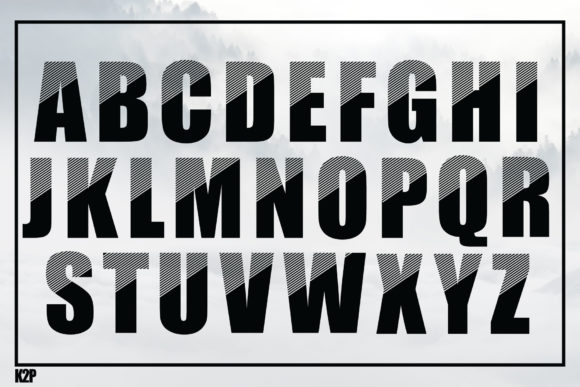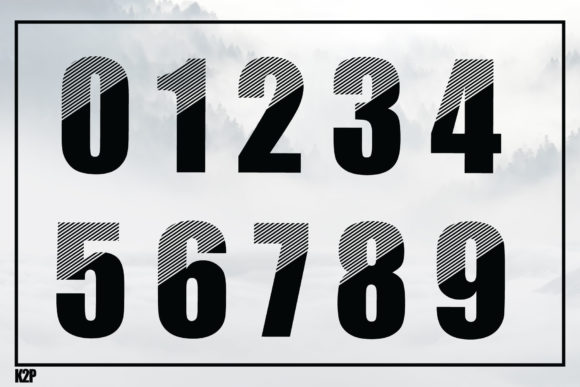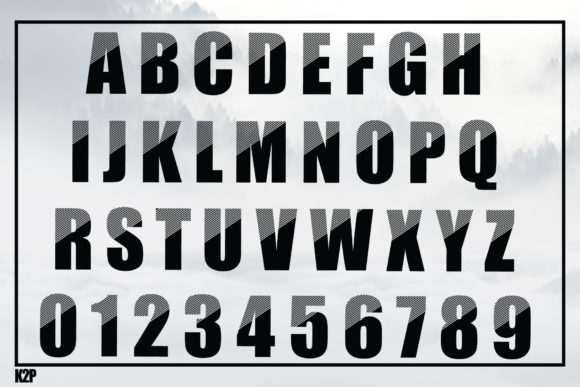
Introduction to Basic 101 Font
As you sit down at your desk, surrounded by scattered sheets of paper, markers, and glue, the spark of creativity ignites within you. The blank canvas stares back, waiting for your touch. This is the moment when imagination knows no bounds, and the possibilities are endless. For designers, this is the thrill of the chase, the pursuit of bringing a vision to life. And when it comes to adding that perfect finishing touch, a high-quality font can make all the difference.
Enter the Basic 101 Font, a free download that’s about to become your new best friend. This uniquely designed display font is perfect for any project or crafty idea, and its thick-lettered goodness is sure to add an extra layer of depth to your creations. With its transparent background and versatility, the Basic 101 Font is an invaluable design resource that’s sure to elevate your work to the next level.
Whether you’re working on a creative project or simply want to add some personality to your designs, the Basic 101 Font is an essential addition to your toolkit. Its value lies not just in its aesthetic appeal, but in the freedom it gives you to experiment and push the boundaries of your imagination. So why not give it a try, and discover the magic that the Basic 101 Font has to offer?
Key Features of Basic 101 Font
- High-quality design for creative projects: The Basic 101 Font is designed to provide a clean and simple look, making it perfect for various creative projects such as logos, brochures, and business cards.
- Unique characteristics: The Basic 101 Font features a simple yet distinctive design, with a rounded edge and a subtle texture that adds depth to the font.
Honest Review: Basic 101 Font
I recently stumbled upon the Basic 101 Font, and I must say it’s a great addition to any designer’s toolkit. This high quality font is available for a free download, making it an excellent resource for any creative project.
Here are a few things that I think work well with this font:
- ✨ Clear and simple design: The Basic 101 Font is perfect for projects where you need a clean and minimalistic look.
- ✨ Transparent background: This feature allows for seamless integration with images and other design elements.
- ✨ Easy to read: The font is highly legible, making it ideal for body text in your designs.
- ⚠️ Limited style options: While the font itself is great, it’s a bit limited in terms of style options, which may not be suitable for more complex design projects.
- ⚠️ Not ideal for headings: While it’s great for body text, the Basic 101 Font may not be the best choice for headings due to its simplicity.
Overall, I think the Basic 101 Font is a great resource for designers who need a simple, high quality font for their creative projects. While it may not be suitable for every project, it’s definitely worth adding to your design arsenal.
The Basic 101 Font is a high-quality, free download design resource ideal for creative projects that require a clean and simple font. This font features a transparent background, making it easy to use in various design applications.